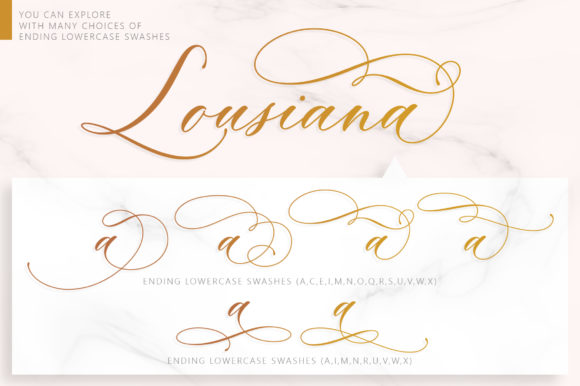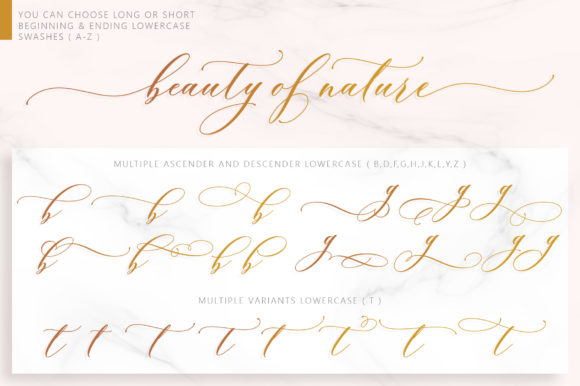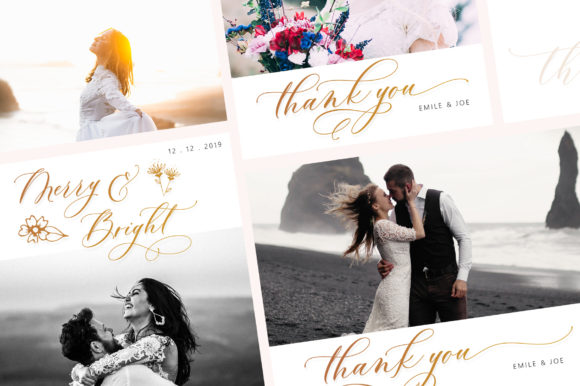
Brendisa Font
Brendisa is a modern calligraphy script font. Add this font to your favorite creative ideas and notice how it makes them come alive!This font is PUA encoded which means you can access all of the glyphs and swashes with ease!